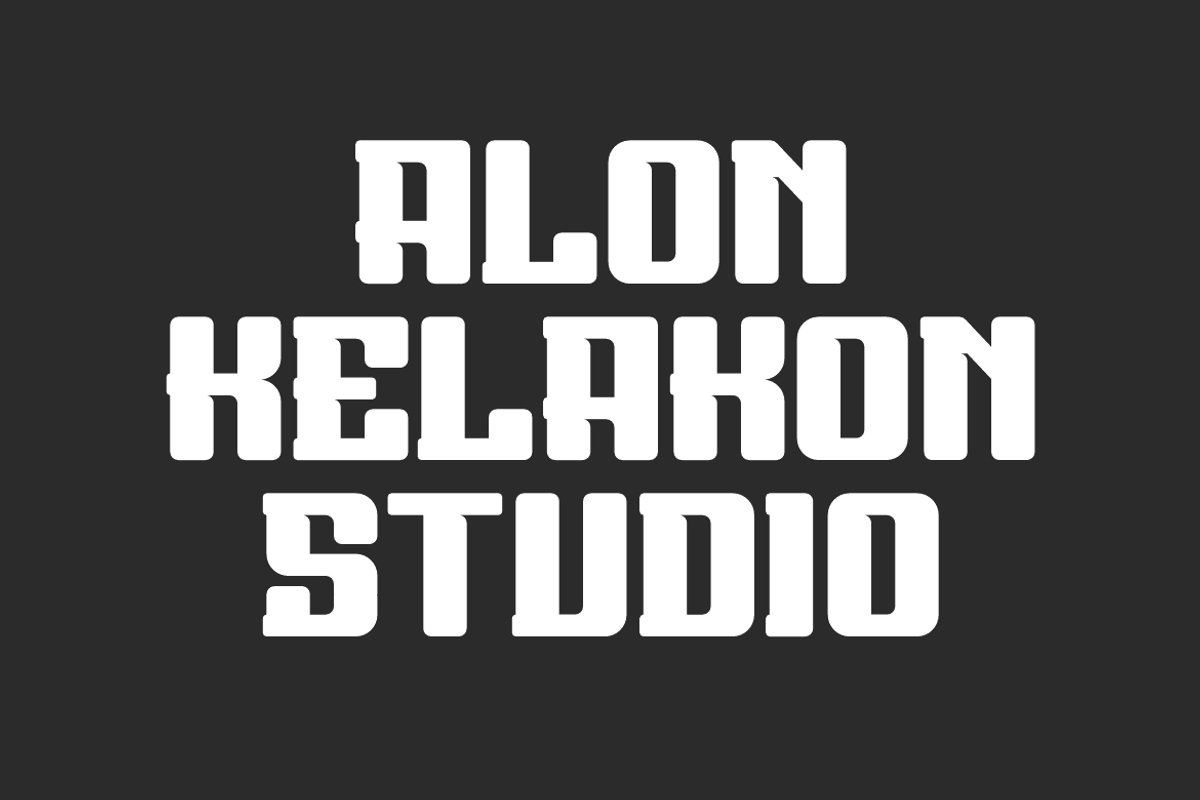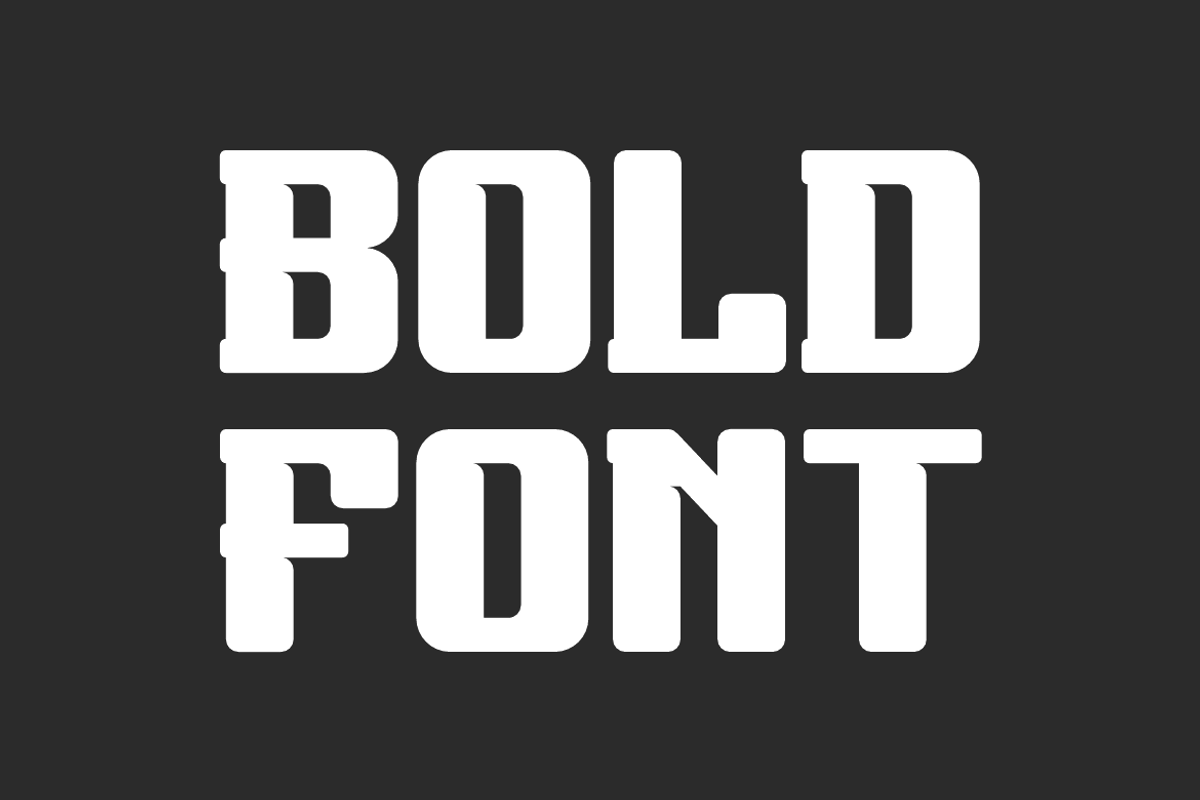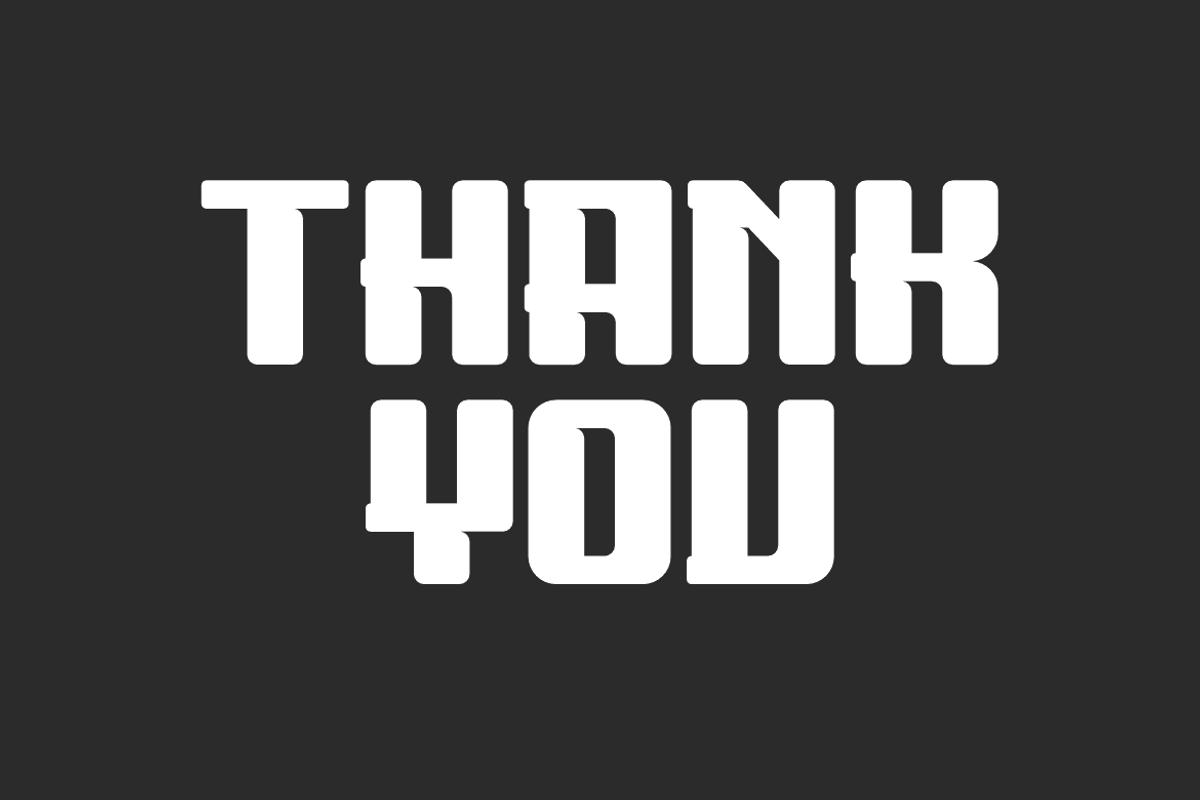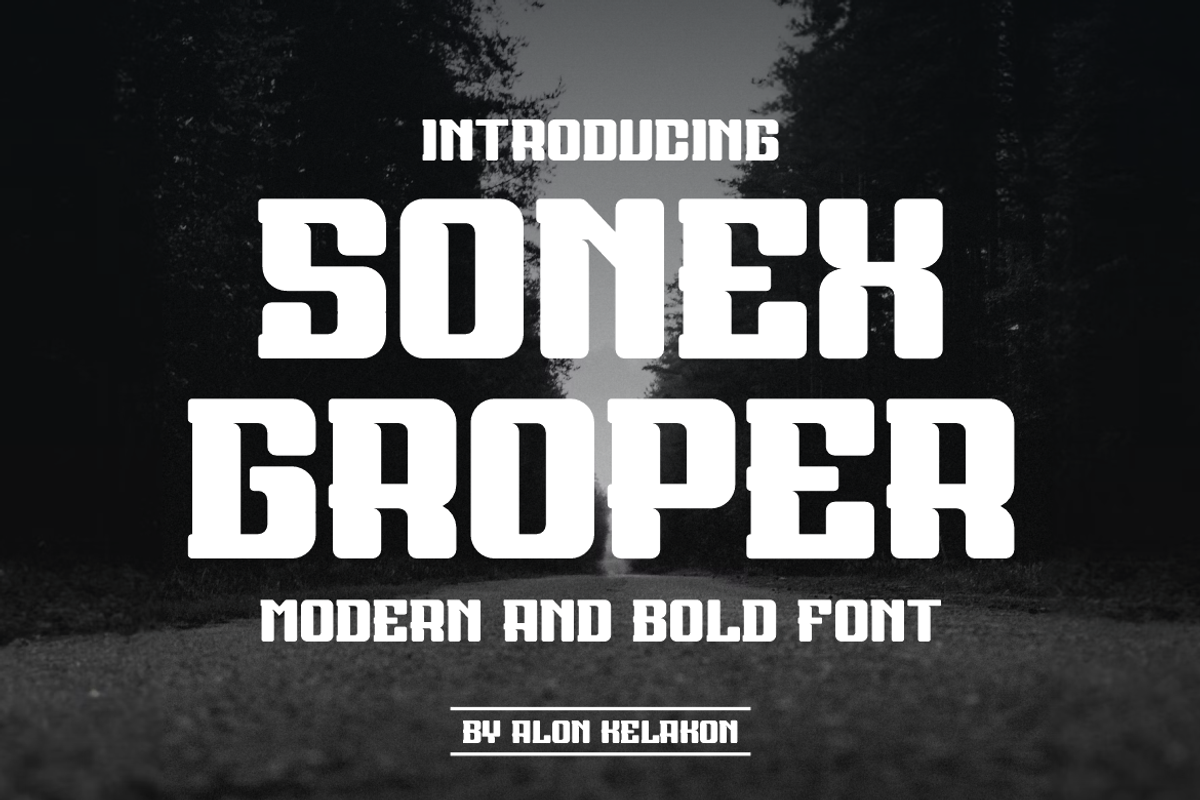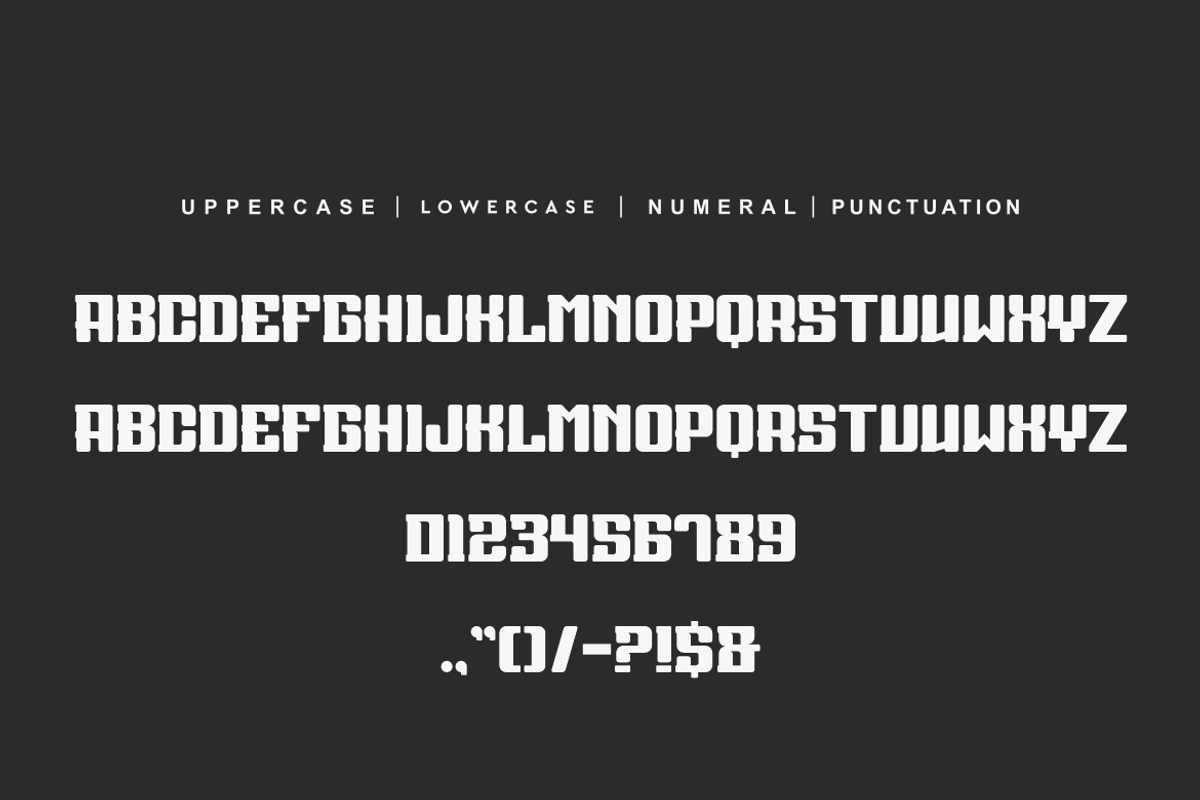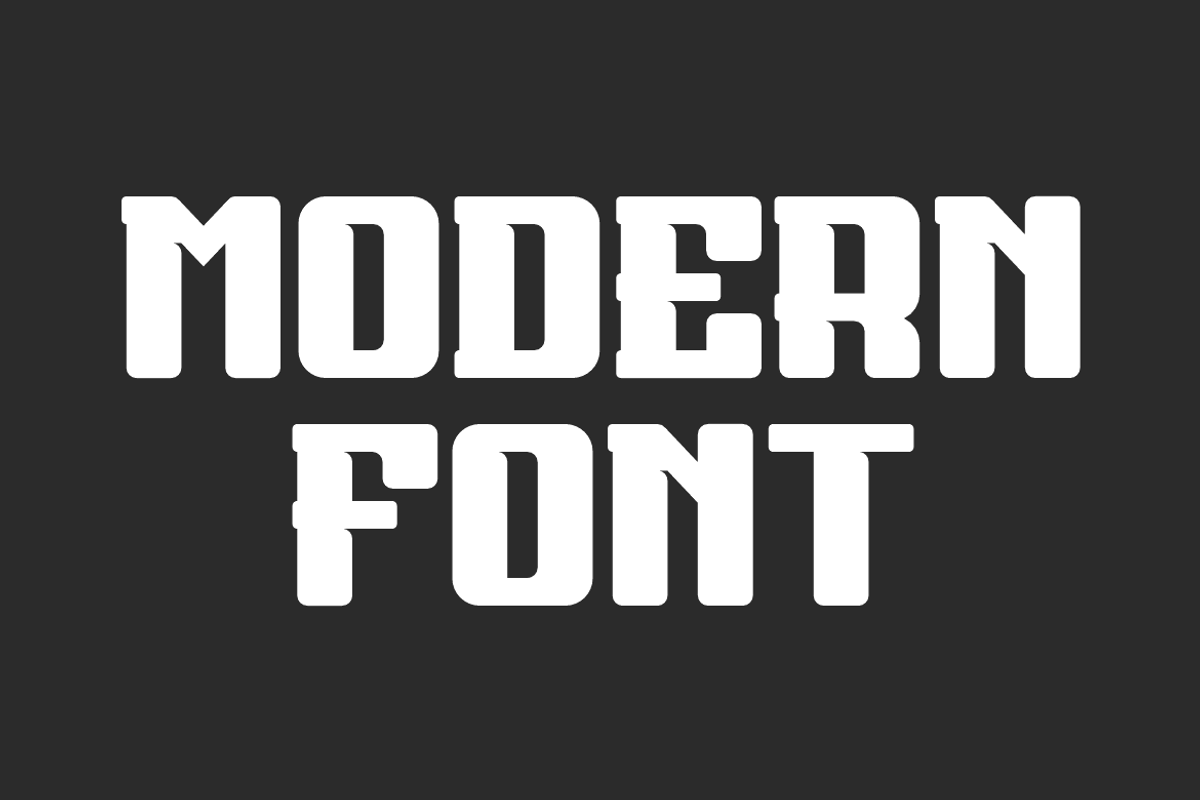
Sonex Groper
Sonex Groper Font is unique . Ready to use for your design like labeling, movie sceen, poster, movie title, gigs, album covers, logos, and much more.